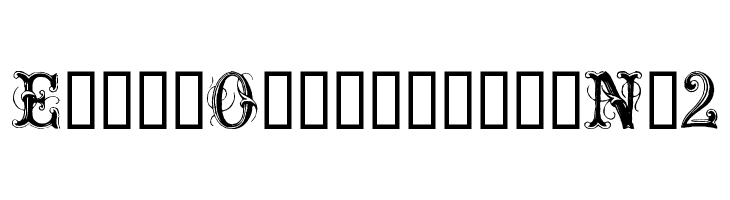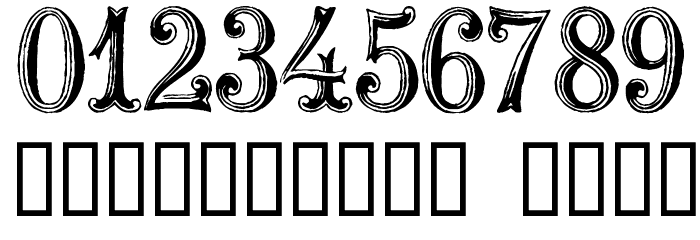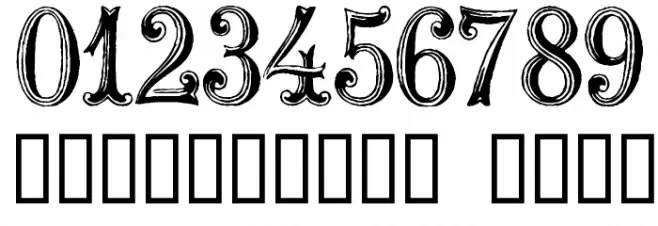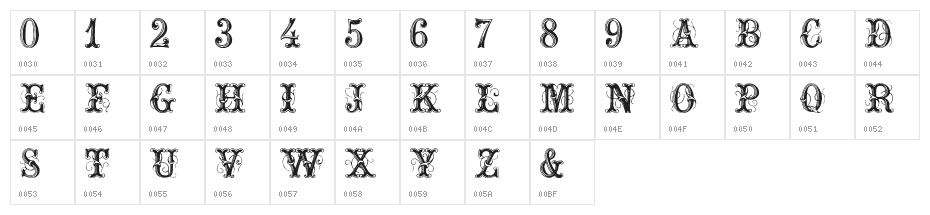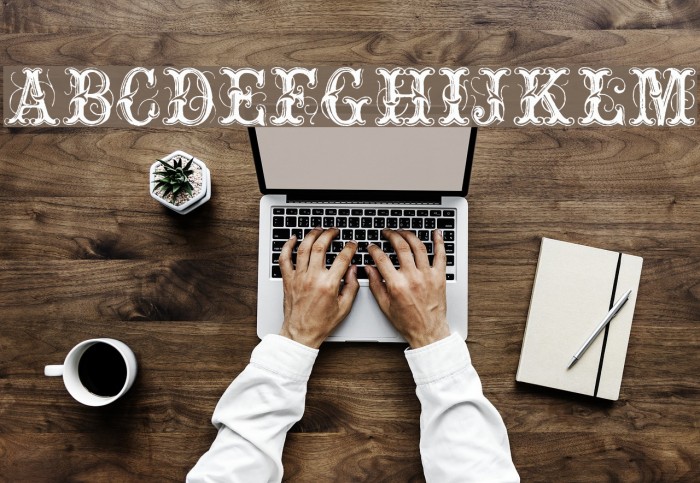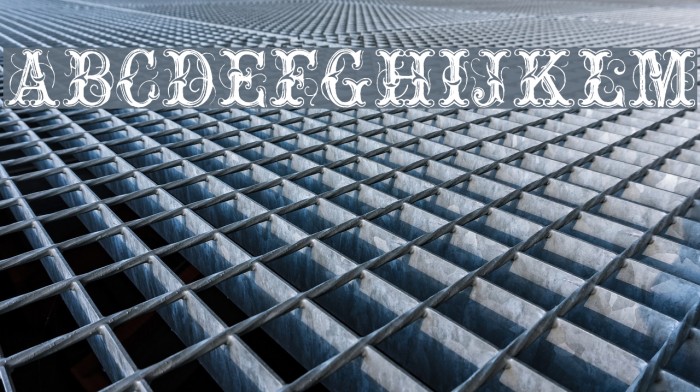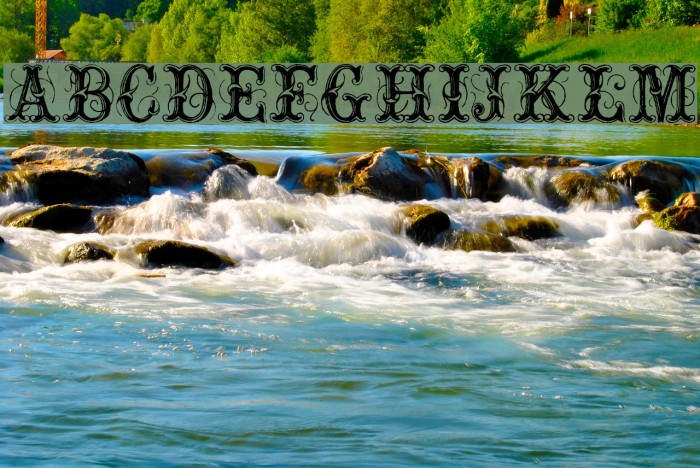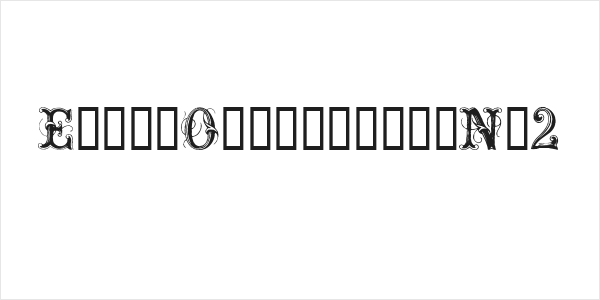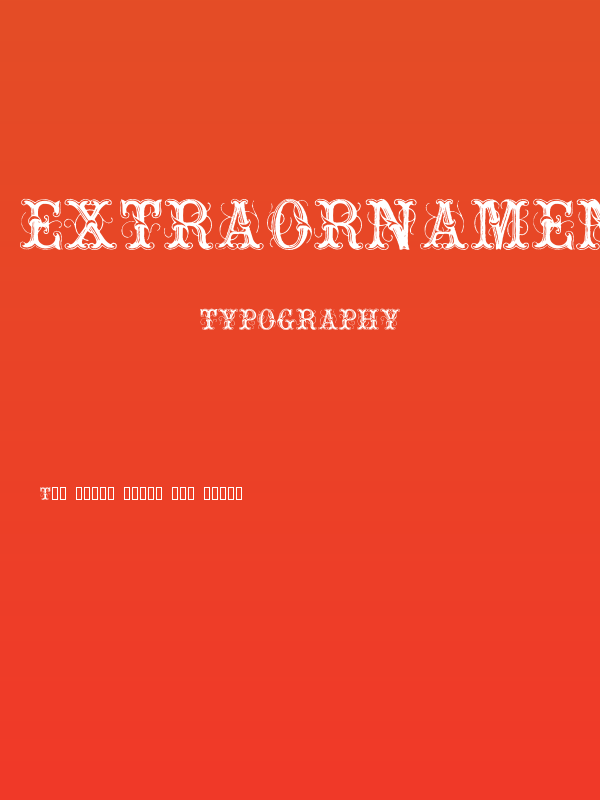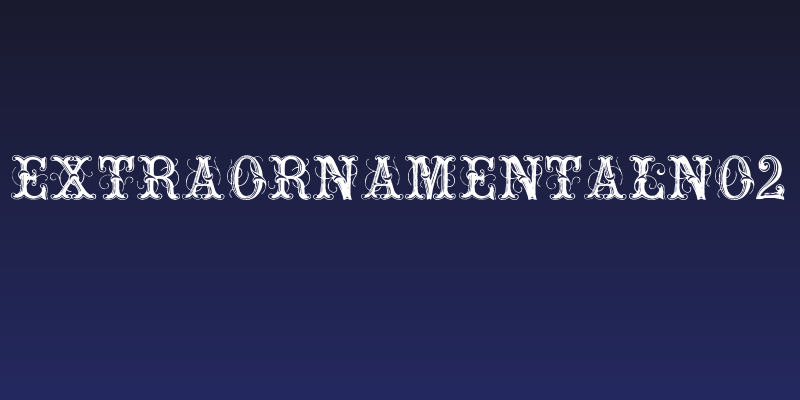
ExtraOrnamentalNo2 Font
ExtraOrnamentalNo2 Description
This font is a highly decorative and ornate typeface, characterized by intricate swirls and embellishments that extend from the main strokes of each letter. The uppercase letters are particularly elaborate, with flourishes that give a sense of elegance and grandeur. The numerals also carry a similar ornate style, making them stand out with their unique and artistic design. The overall appearance is reminiscent of vintage or Victorian-era typography, making it suitable for projects that require a touch of sophistication and historical charm.
| Proposed Projects | Ideal for wedding invitations, vintage-themed posters, book covers, and branding that requires a classic and elegant touch. |